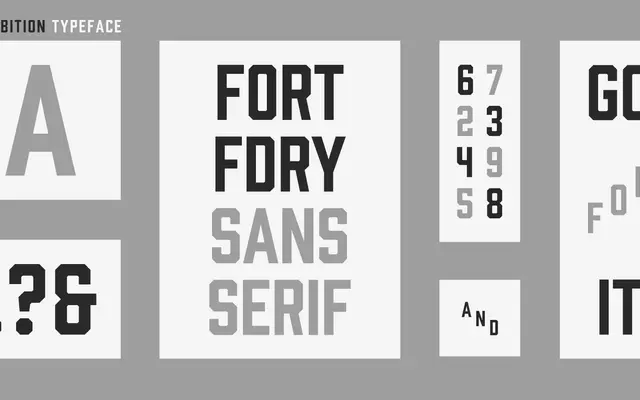
Prohibition
Fort Foundry · Mattox Shuler
A vintage sans in eight styles by Mattox Shuler, drawn from early twentieth-century war and workforce poster lettering.
Prohibition takes the clean geometry of early sans letterforms and gives them a worn, printed character through its Rough and Round variants. Eight styles cover Lines, Regular, Round and Rough, each with an oblique companion, offering a useful range for display and poster work. Discretionary catchwords and stylistic alternates add period flavour.
A vintage-styled geometric sans with no serifs, drawing from early twentieth-century war and workforce poster lettering. The inclusion of stylistic alternates, rough and round variants reinforces its display-oriented, retro character.